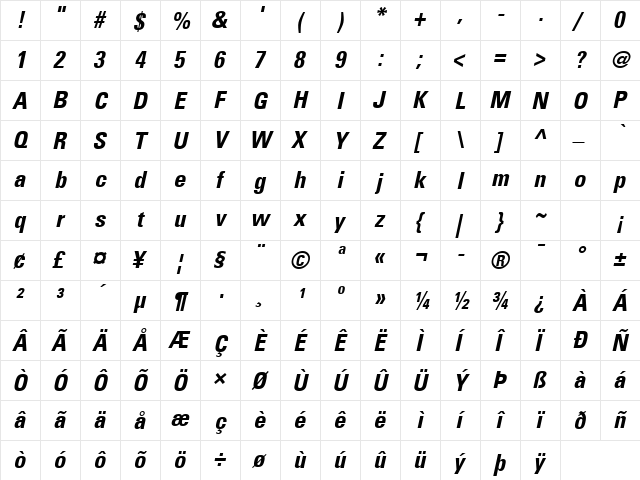
Univers 47 CondensedLight Bold Italic Font Preview
Design Context for Univers 47 CondensedLight Typeface
Univers 47 CondensedLight offers clean, dependable letterforms without strong stylistic allegiance, making it a practical choice for designers who need flexibility. The dynamic lean of this cut emphasises speed and emphasis in any layout. Its bold stroke weight gives it real presence on the page. The condensed width makes it efficient for tight spaces without sacrificing legibility.
Pro Tip: Use Univers 47 CondensedLight for emphasis, pull quotes, and subheadings where its slanted energy can add rhythm to the layout.